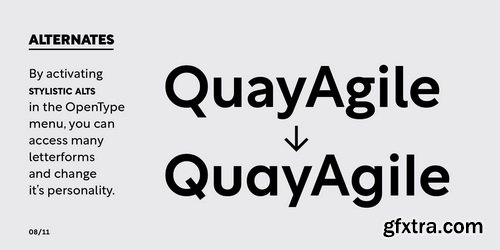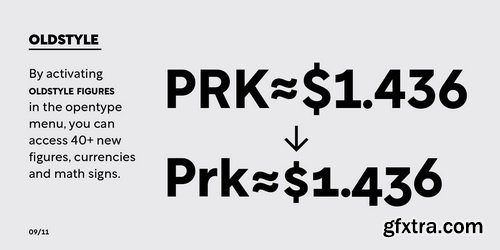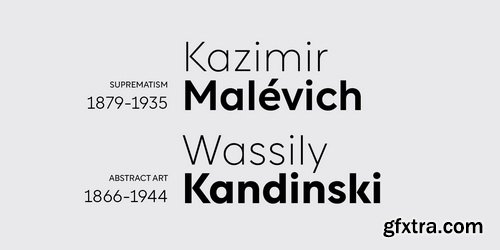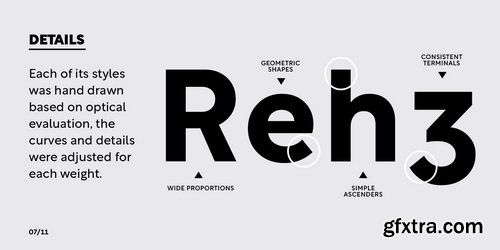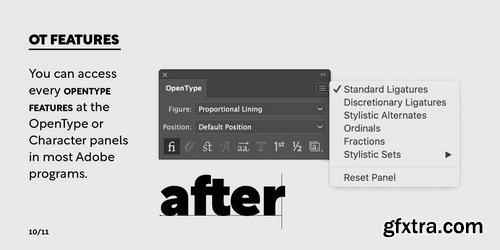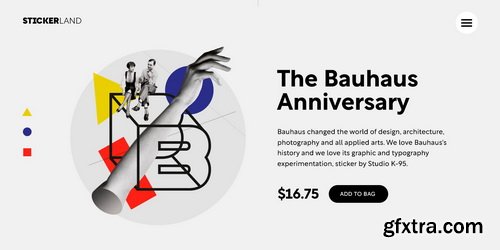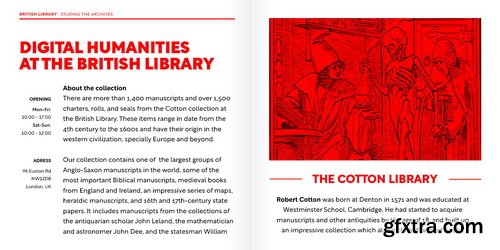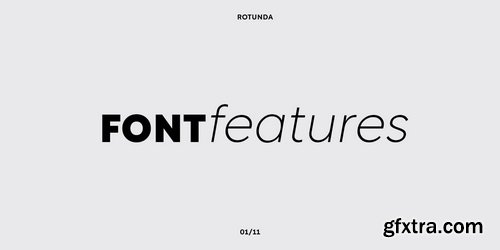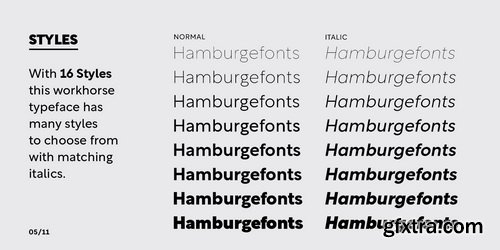
Rotunda Font Family
Rotunda blends the best of three worlds: it’s geometric, humanist and grotesque. But, far from being a tasteless hybrid, it has a strong personality and British undertones that turn it into a stylish and sober classic font face.Thanks to its ample character set and many variables, it stands as a versatile, all-terrain font. Strong and elegant, modern and classic, firm and humanistic. It truly is a 21st Century classic.It includes a very thorough coverage for a wide variety of Latin alphabet-based language families.